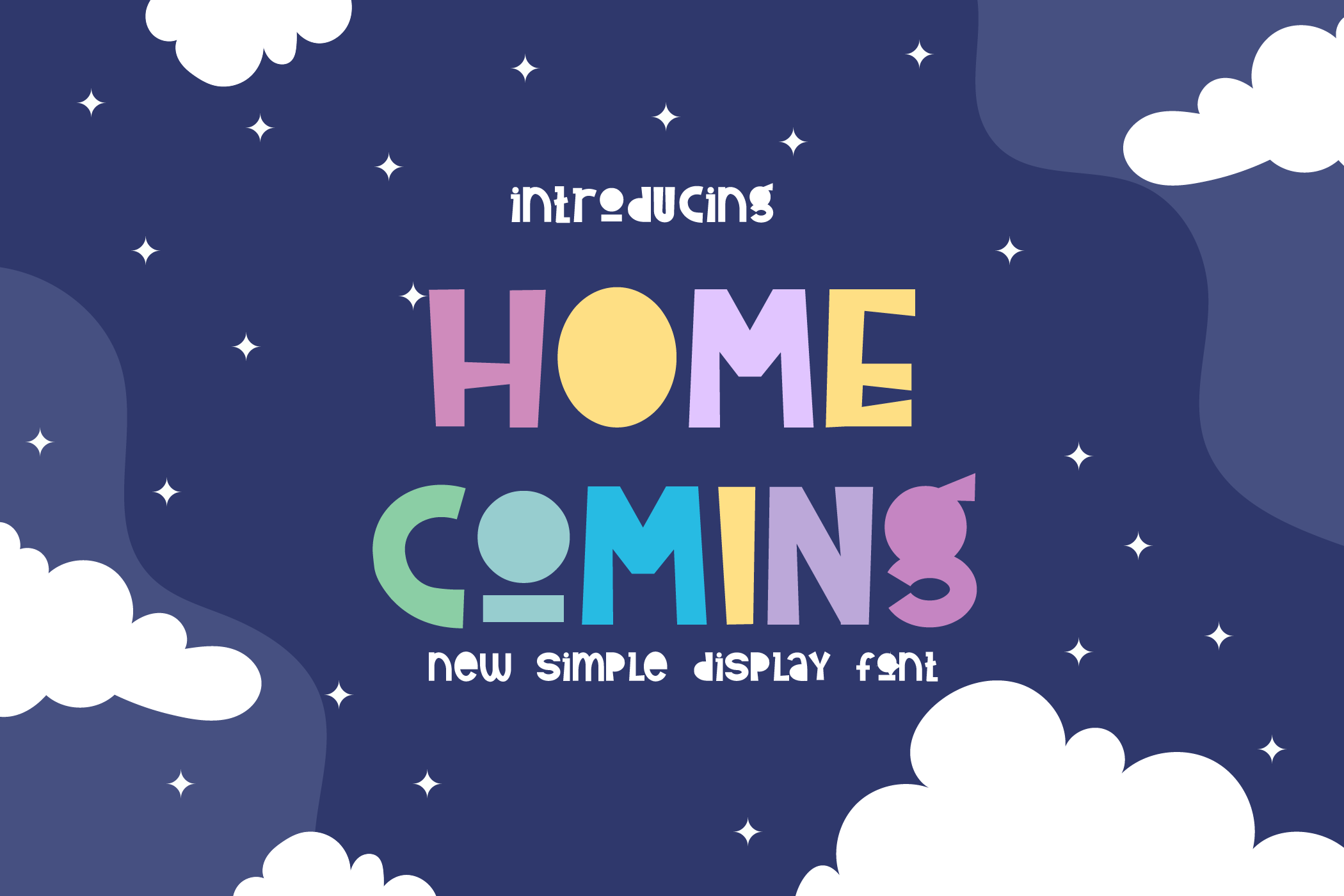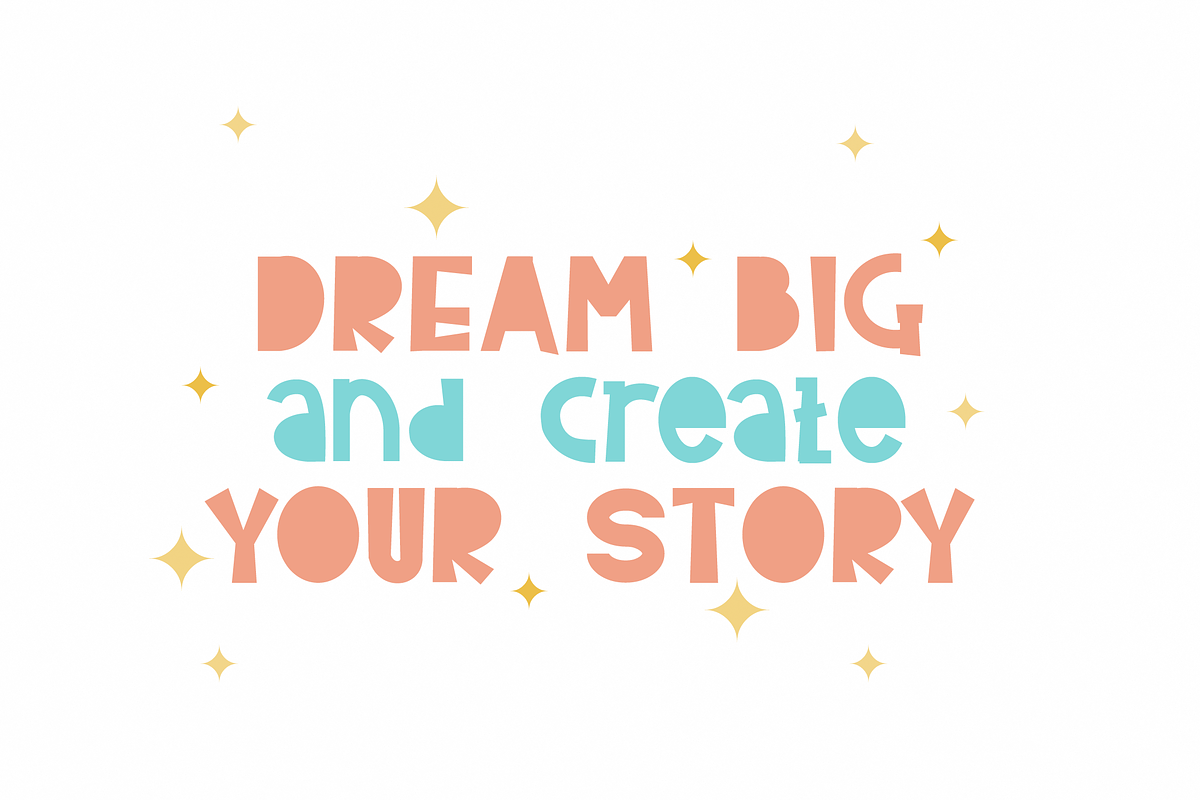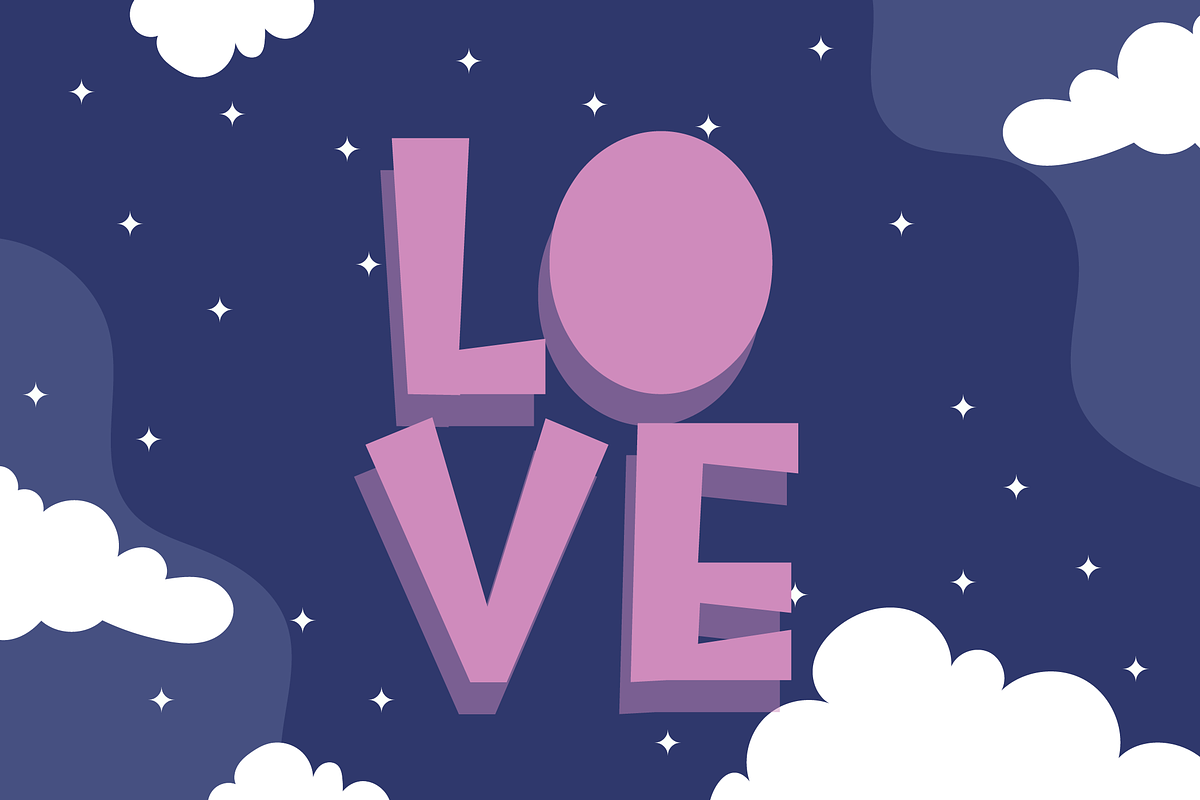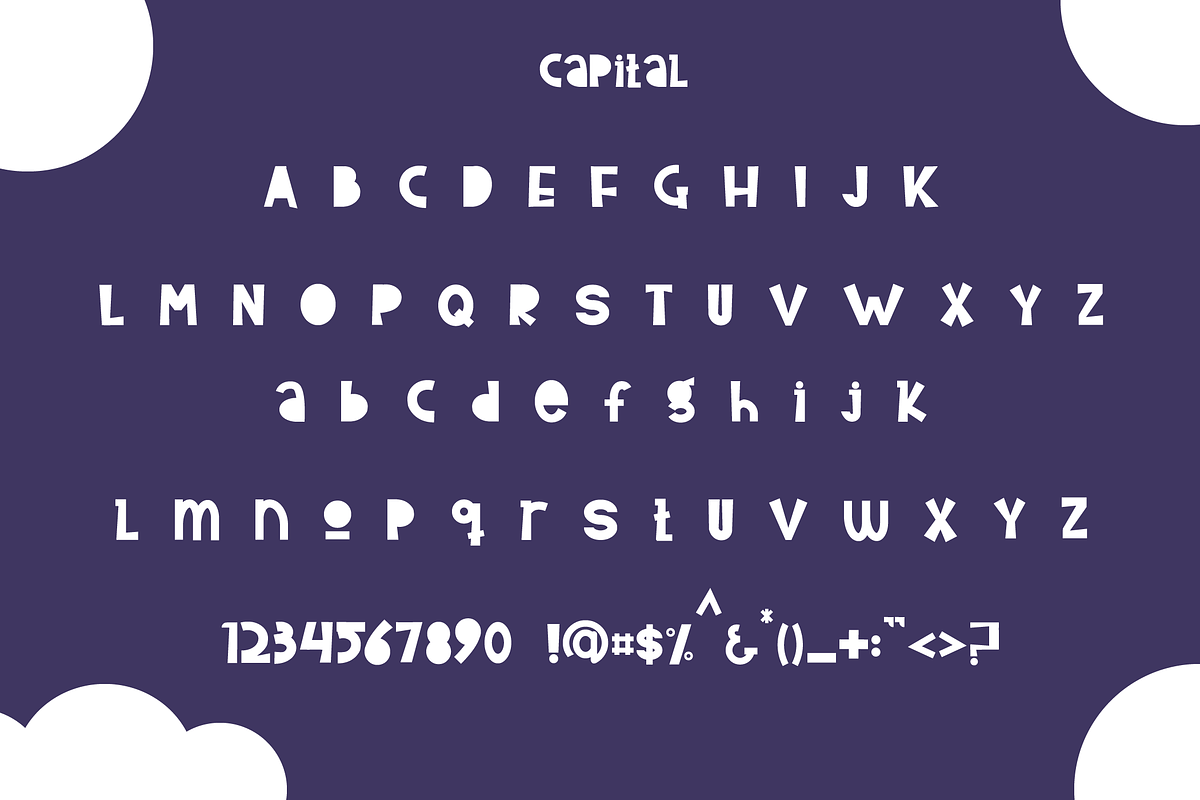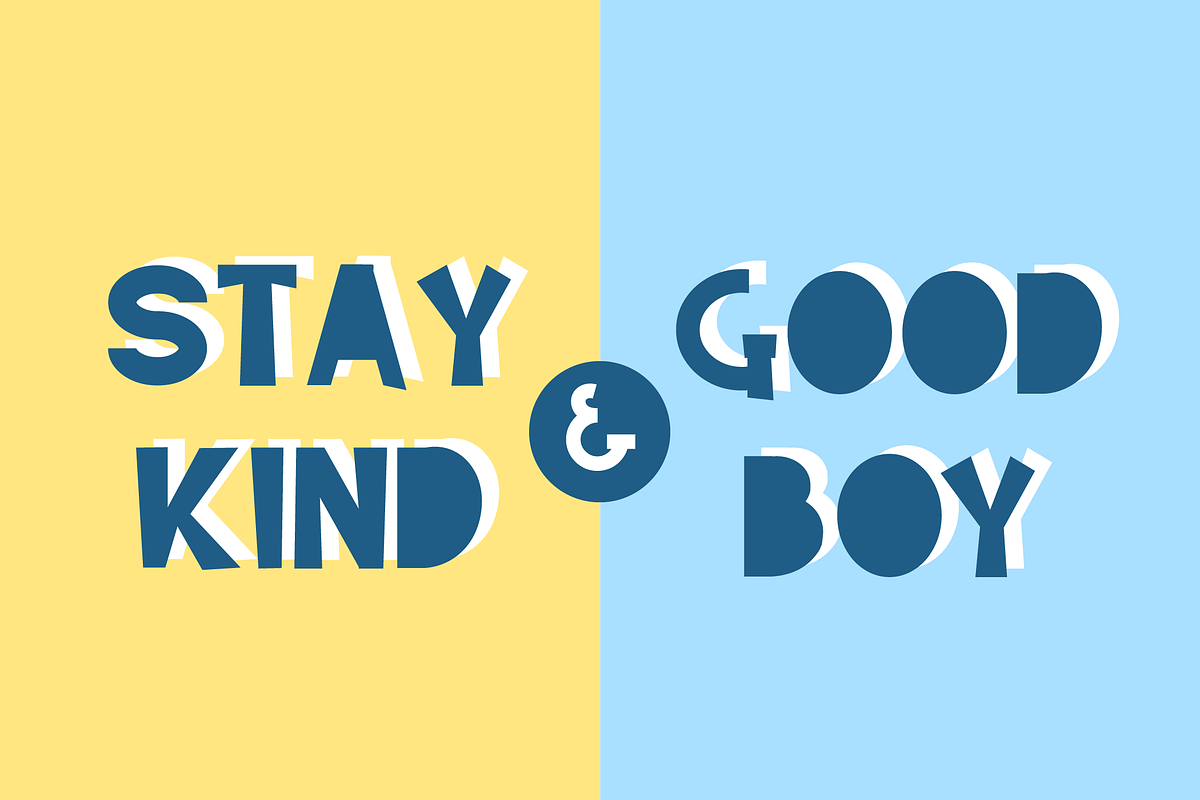
Home Coming Font
Home Coming is a simple and trendy display font. Bold and playful, this font will make each of your designs stand out. Whether you’re looking for fonts for Instagram or calligraphy scripts for DIY projects, this font will turn any creative idea into a true piece of art!